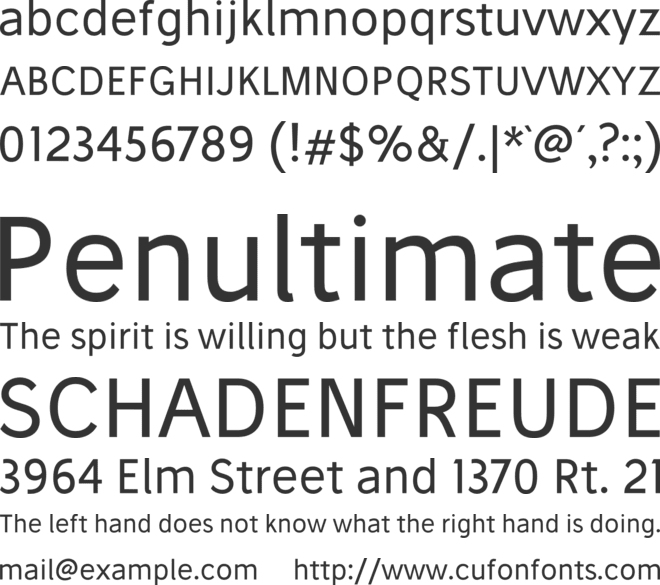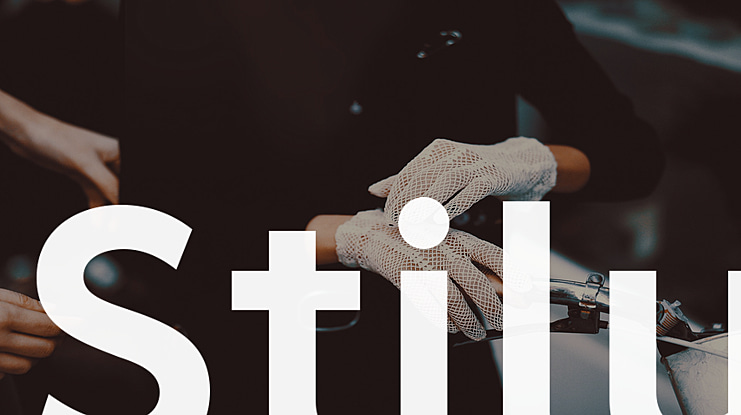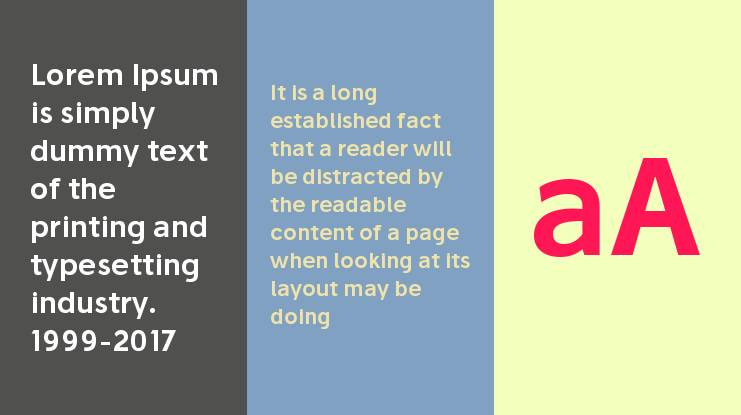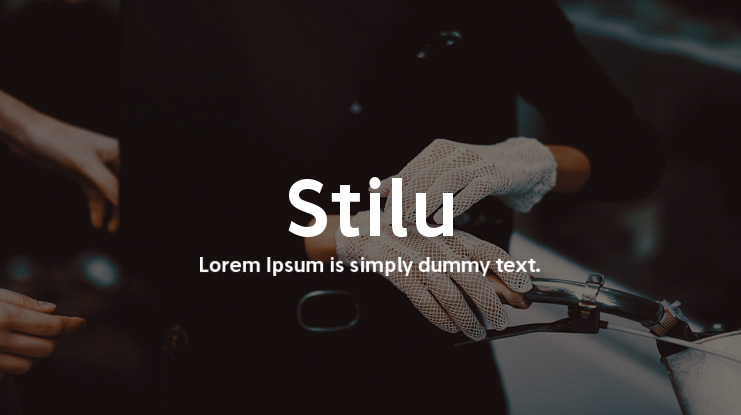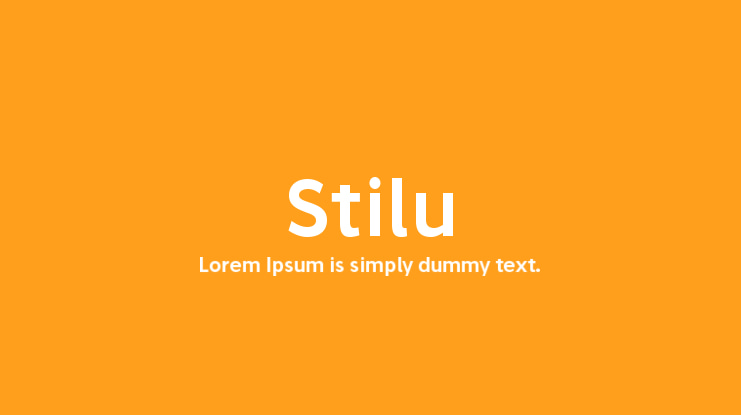
STILU is a family of sans serif typefaces. In this package are four weights avalaible: Light, Regular, SemiBold and Bold plus obliques. OpenType features: ligatures, small caps figures, old style figures, proportional lining and tabular lining figures.